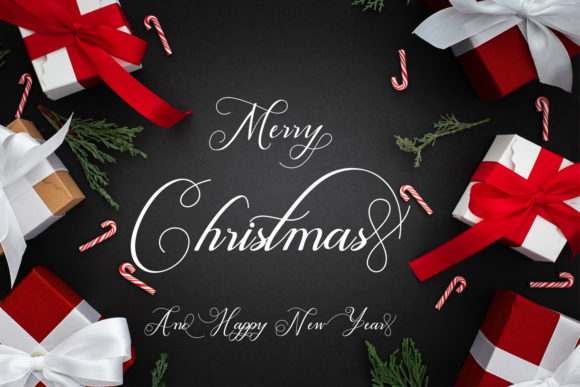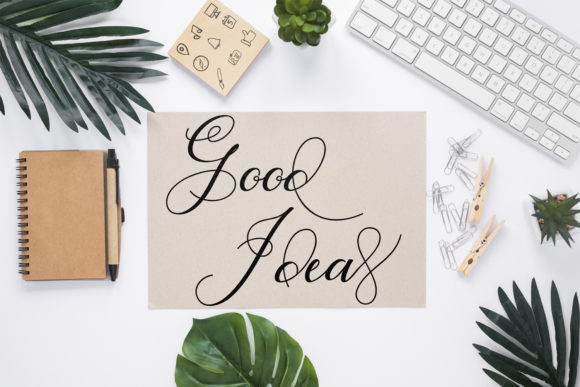
Satriana Font
db-ku.com - Script & Handwritten -- Satarina is a beautiful caligraphy script font. It has a classy, elegant, and modern look which can be used for logos, branding, invitations, stationery, wedding designs, social media posts, and any other design in need of a handwritten touch.